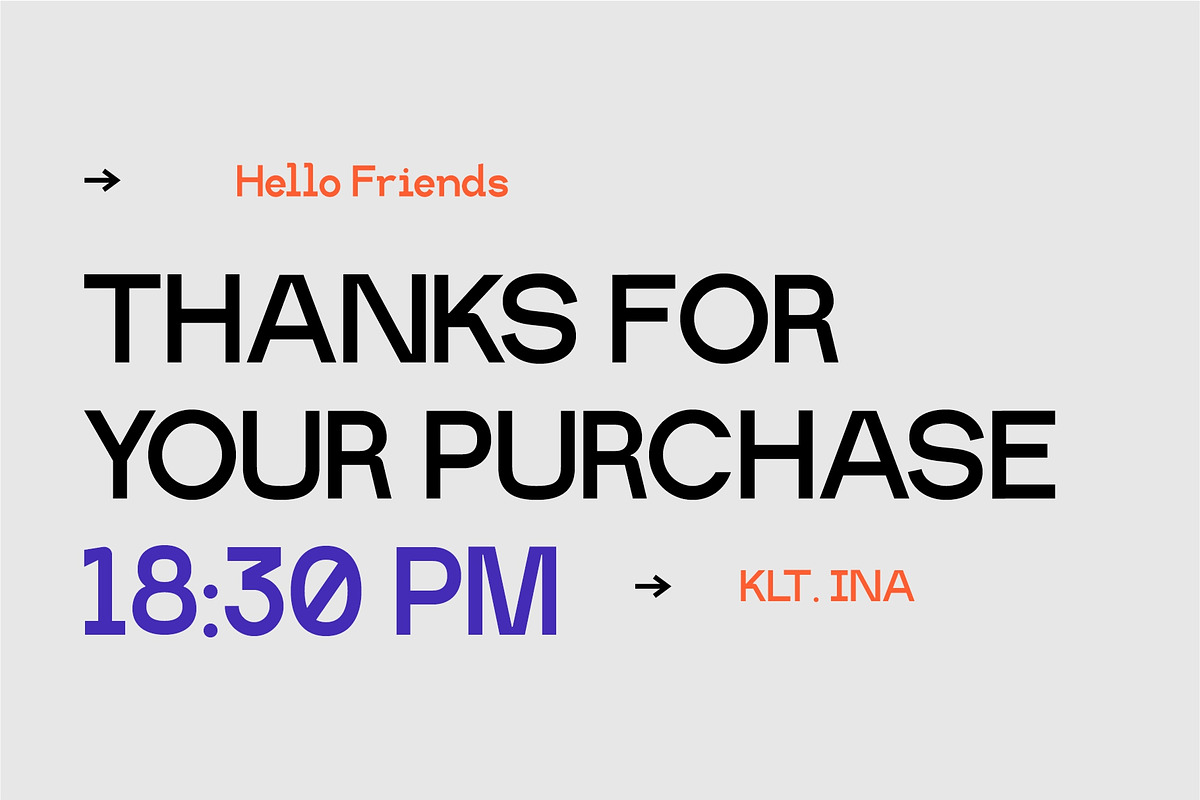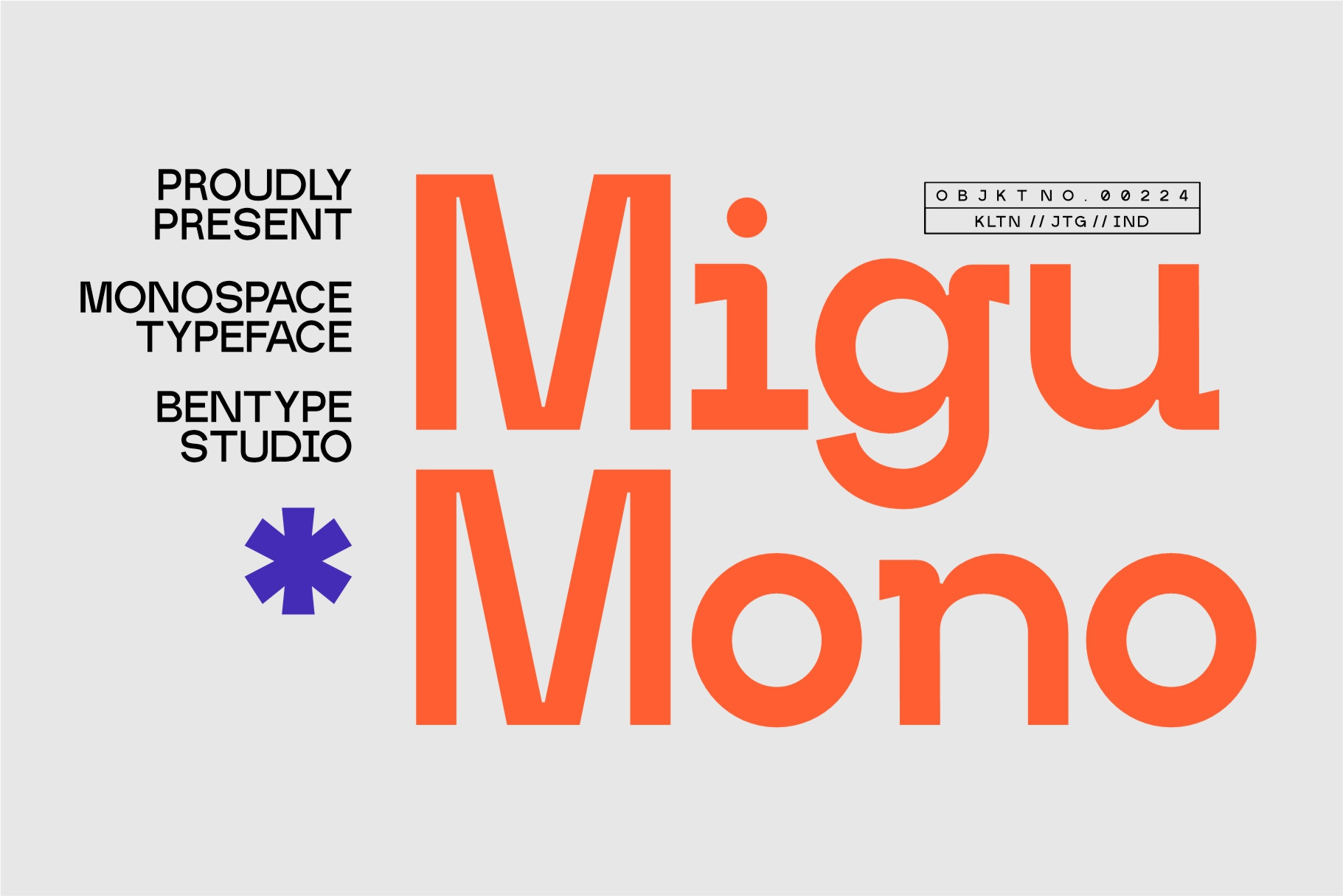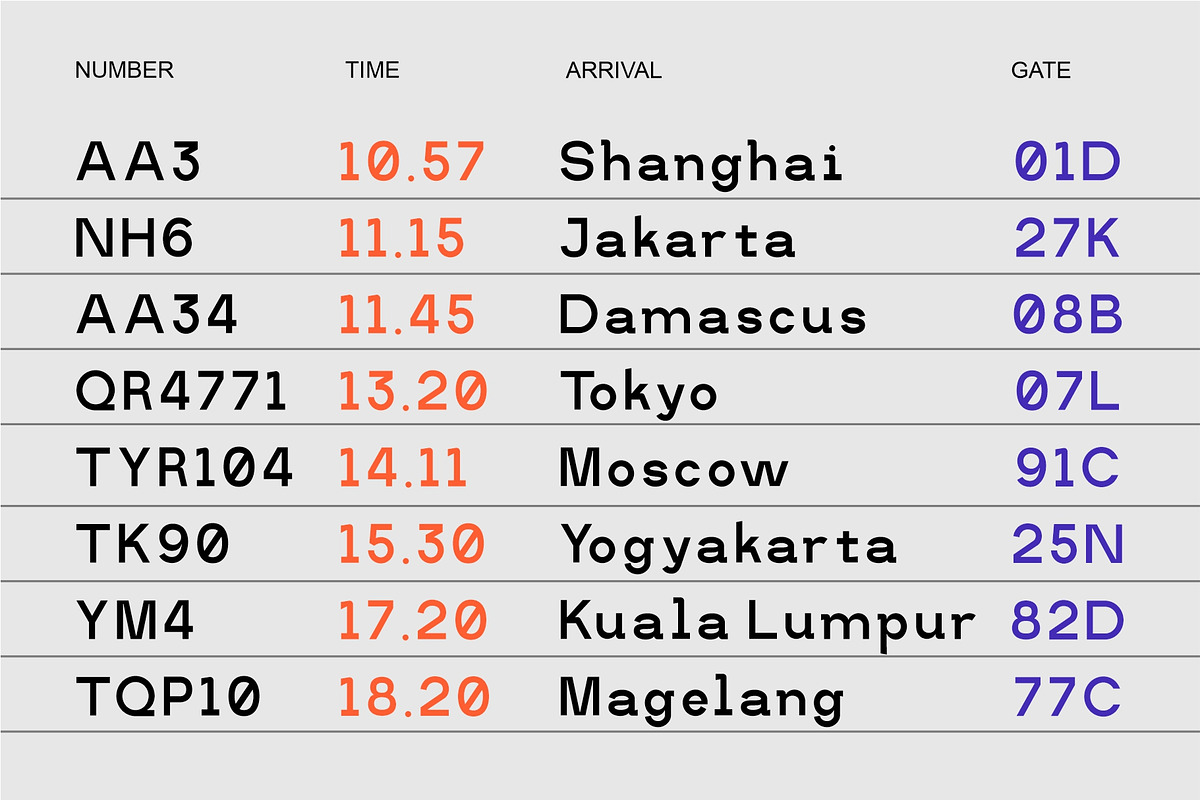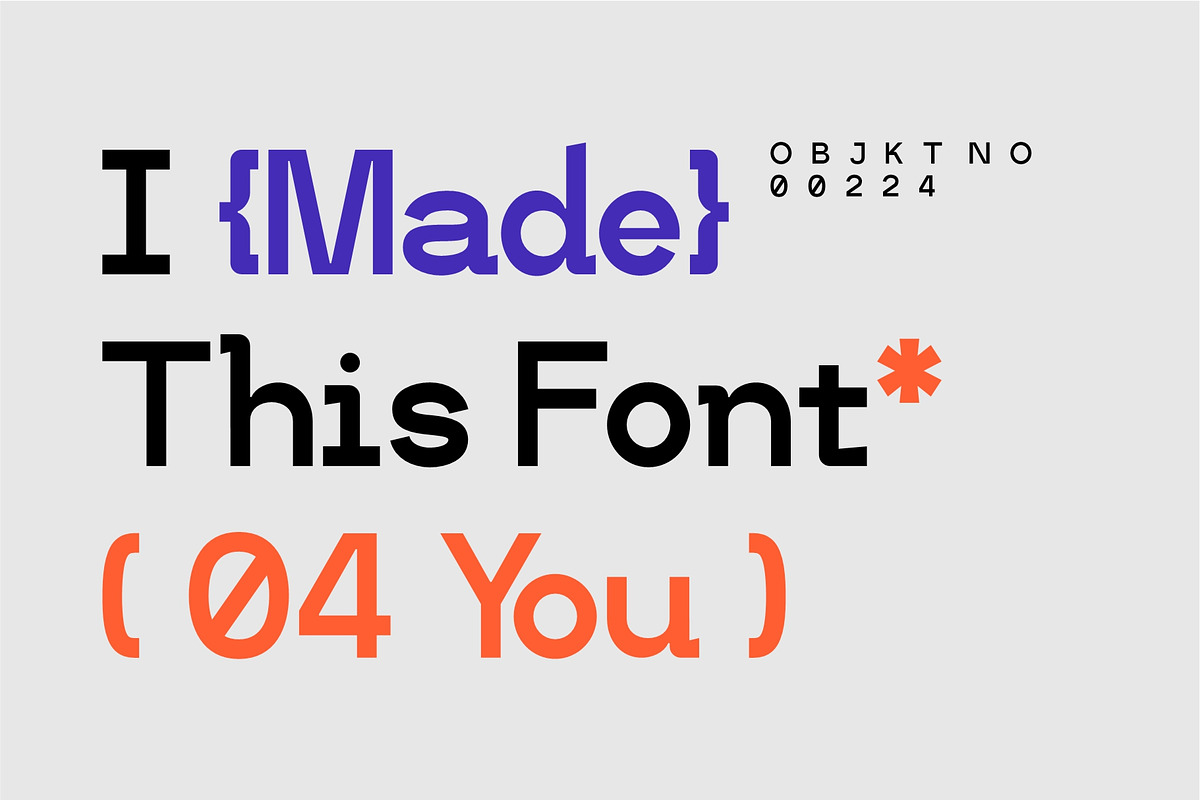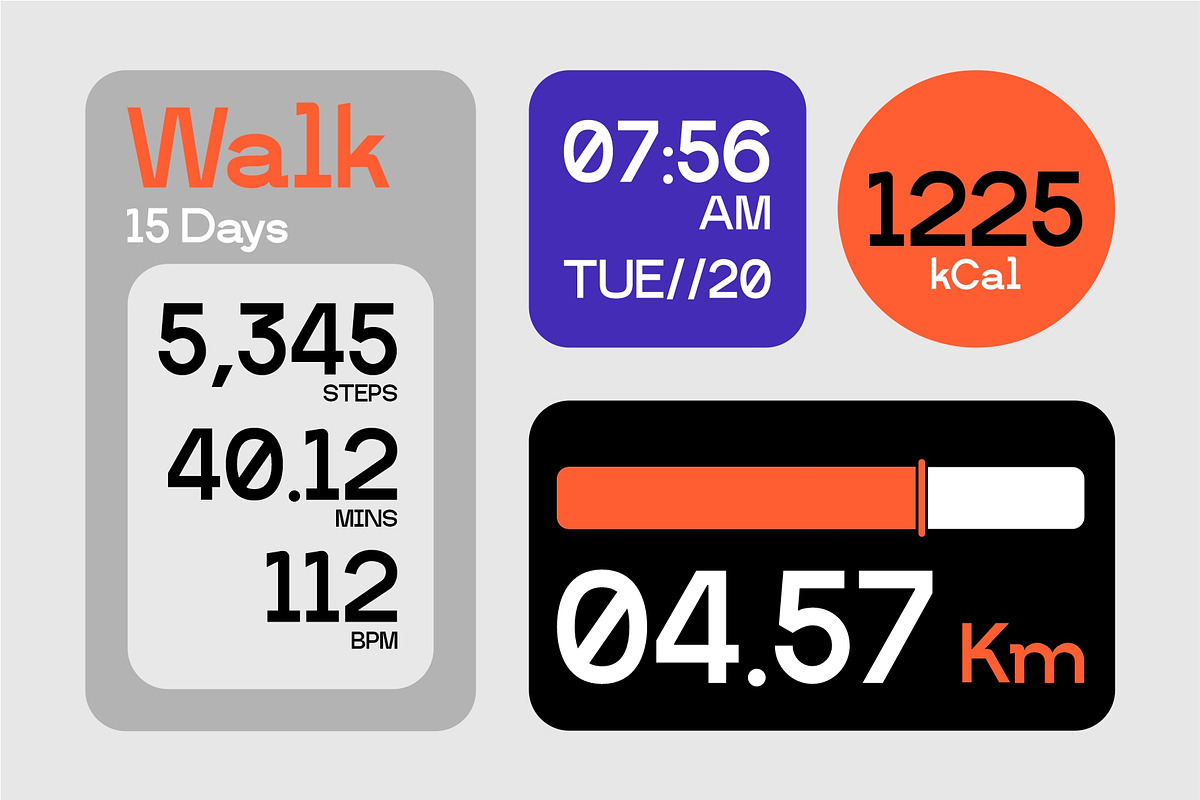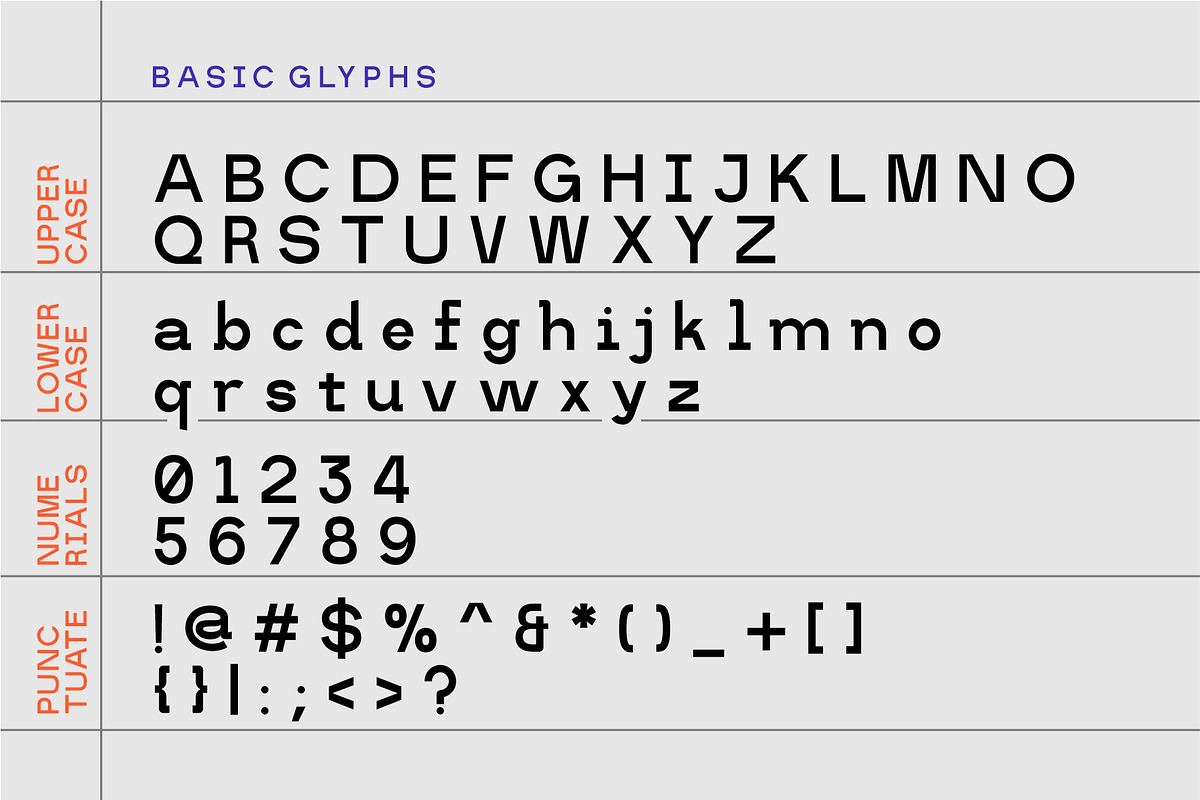
Migu Mono - Monospace Display Font
Migu Mono is a Monospace display font with several unique stems and joins. Despite their limitations in character set and resolution, pixel fonts remain popular among designers for their distinct visual appeal and nostalgic charm, with a condensed style this font is suitable for your design needs for displays, headlines, banners etc.